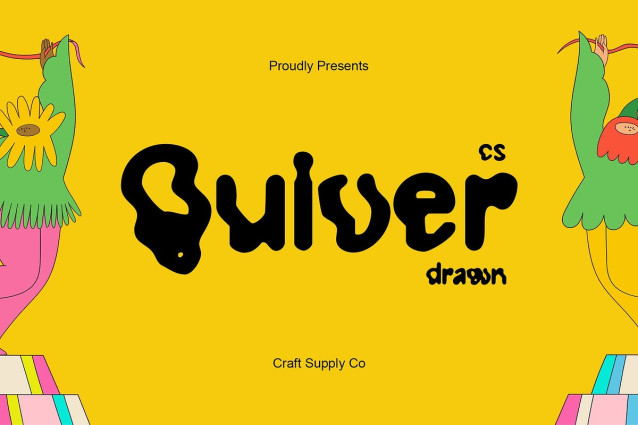
CS Quiver Drawn Font
CS Quiver Drawn Font – Trippy Font: Psychedelic Display Font with Swirling Energy and Hand-Drawn Curves. Unconventional and Expressive Thrives on breaking tradition with its swirling, unconventional curves. Designed to capture attention, this psychedelic display font radiates boldness and creativity, making it the perfect choice for projects that demand a striking and expressive typographic voice.
Vibrant Hand-Drawn Energy Enhanced with a drawn texture, this font feels alive and handcrafted. Each letter carries a dynamic movement, as if sketched with energy and imagination. This artistic detail gives the font depth and authenticity, amplifying its playful and psychedelic spirit.
Colorful Psychedelic Personality With its trippy design and bold structure, channels the colorful imagination of psychedelic art. Its flowing forms and handcrafted feel bring vibrancy to any layout, making it a go-to for designers seeking originality and personality.
Perfect for Creative Impact From music branding and event posters to funky editorials and experimental visuals, this font excels where creativity is key. Its bold curves and psychedelic flair ensure your designs won’t just stand out they’ll leave a lasting impression filled with energy and fun.